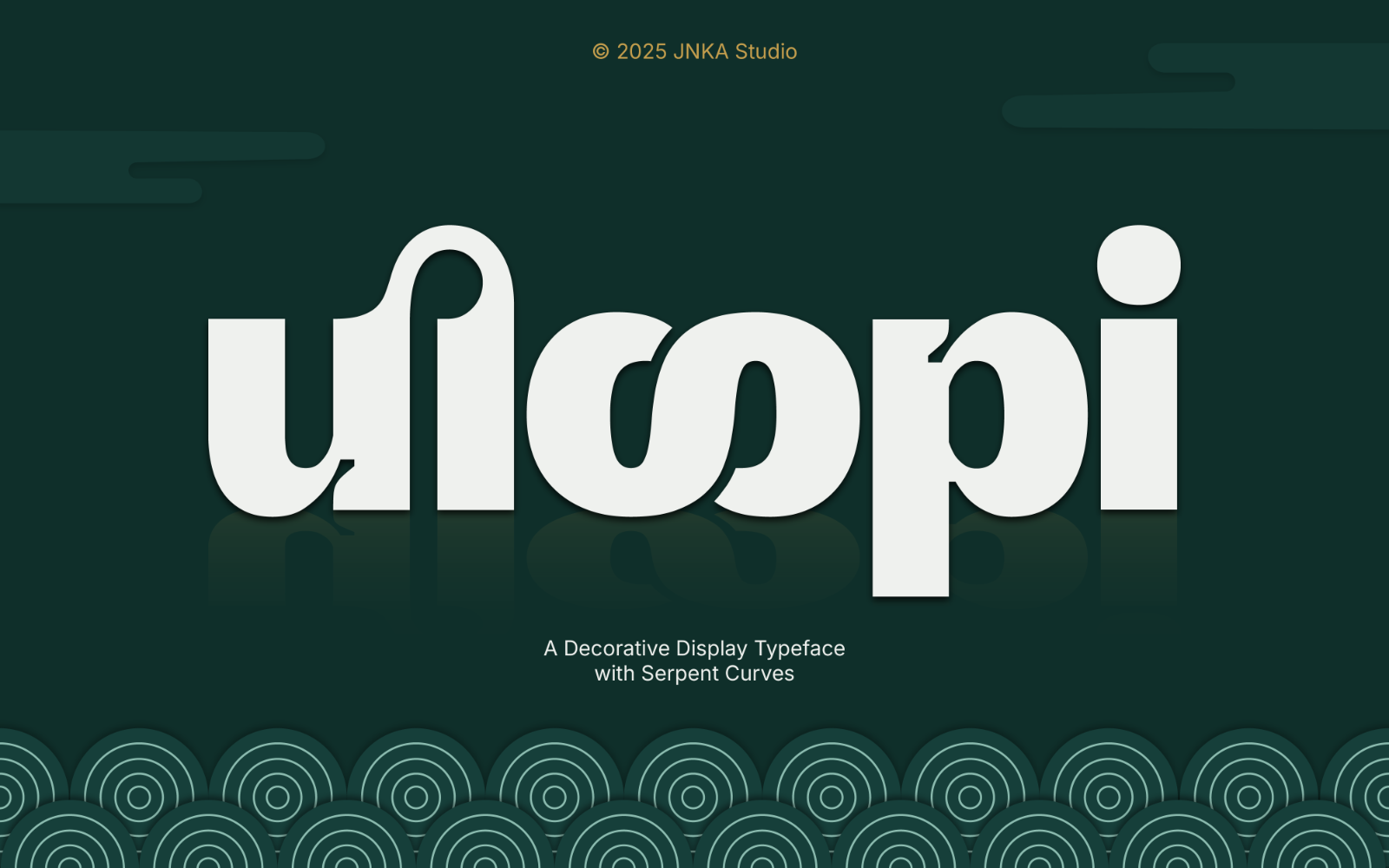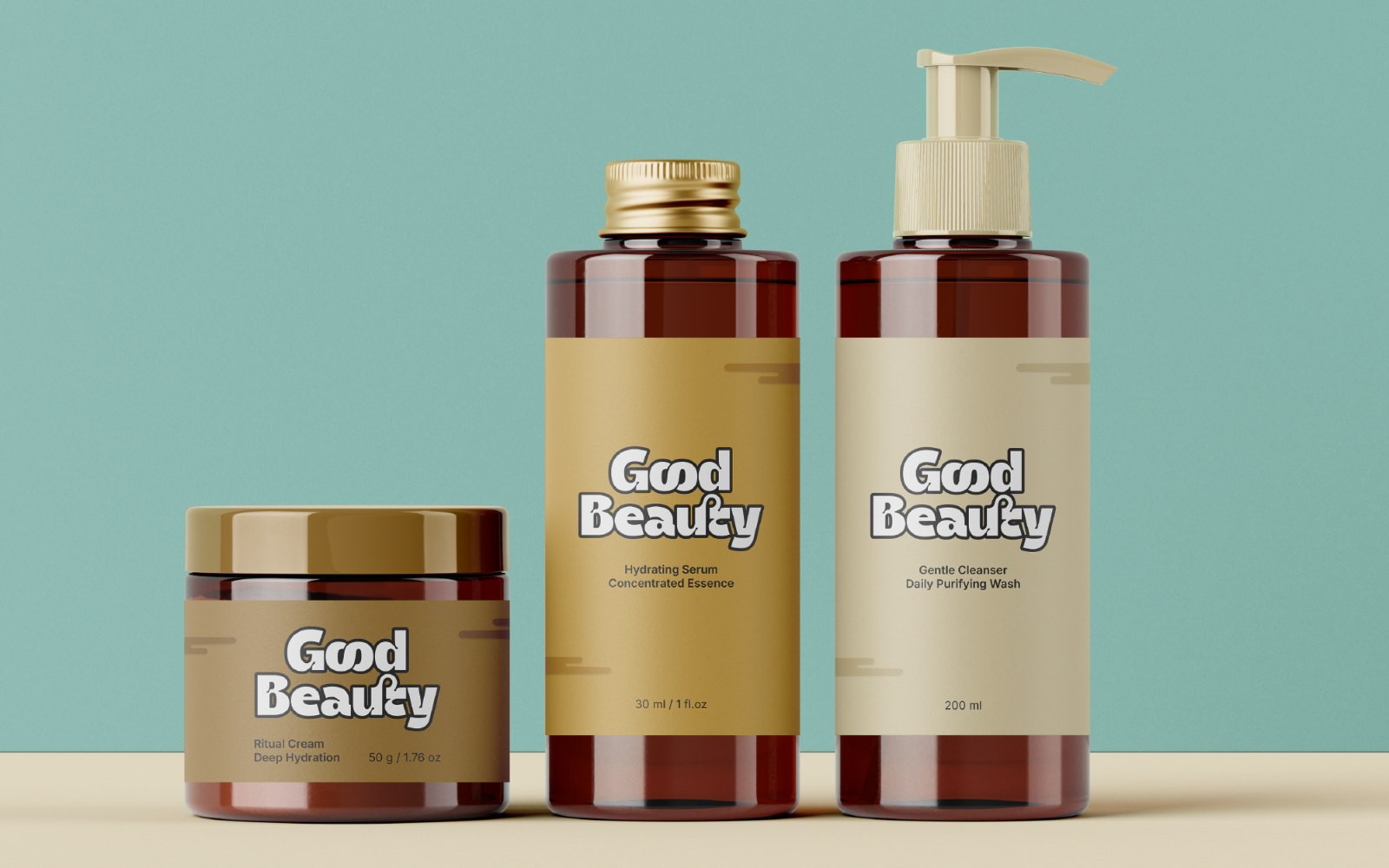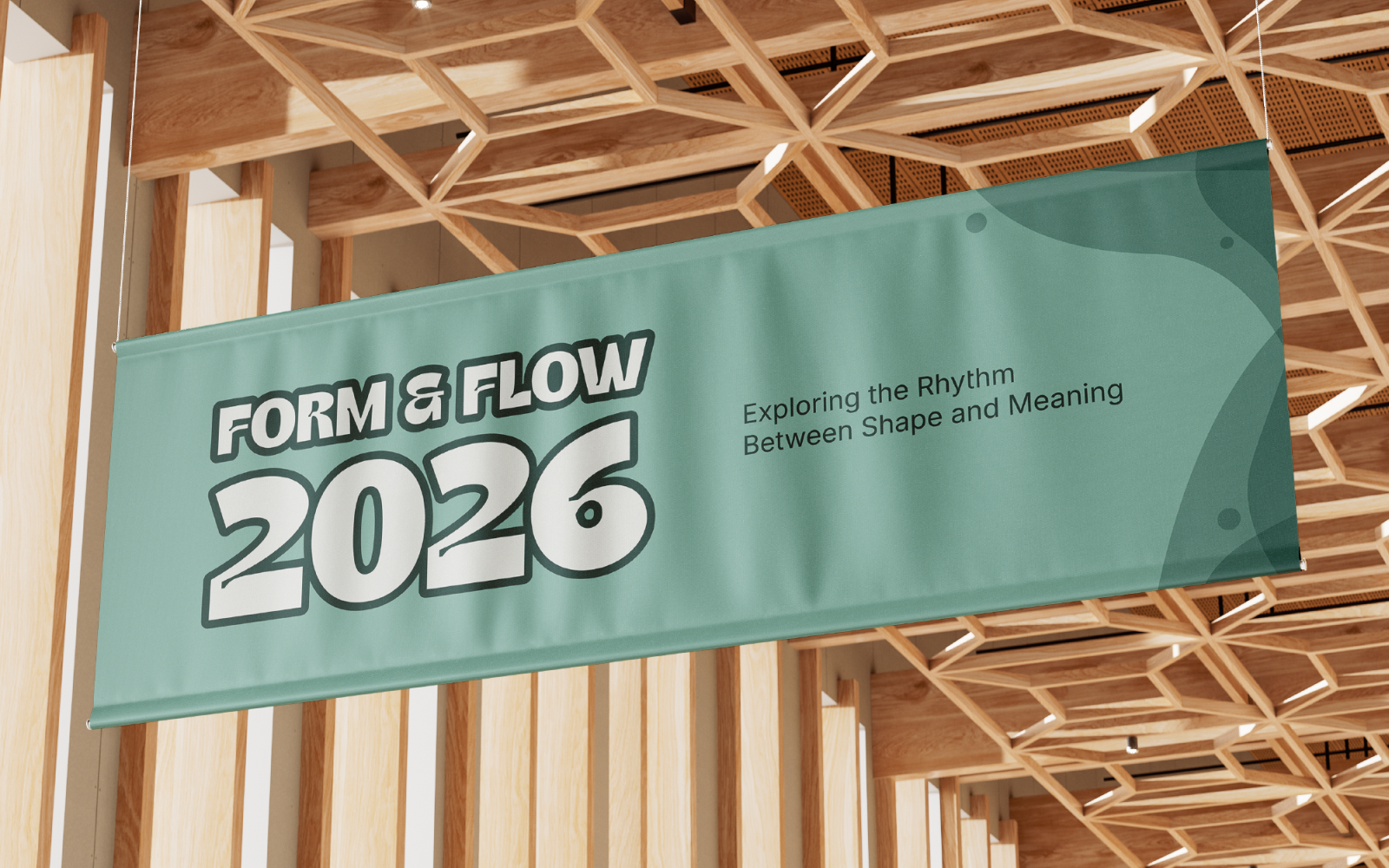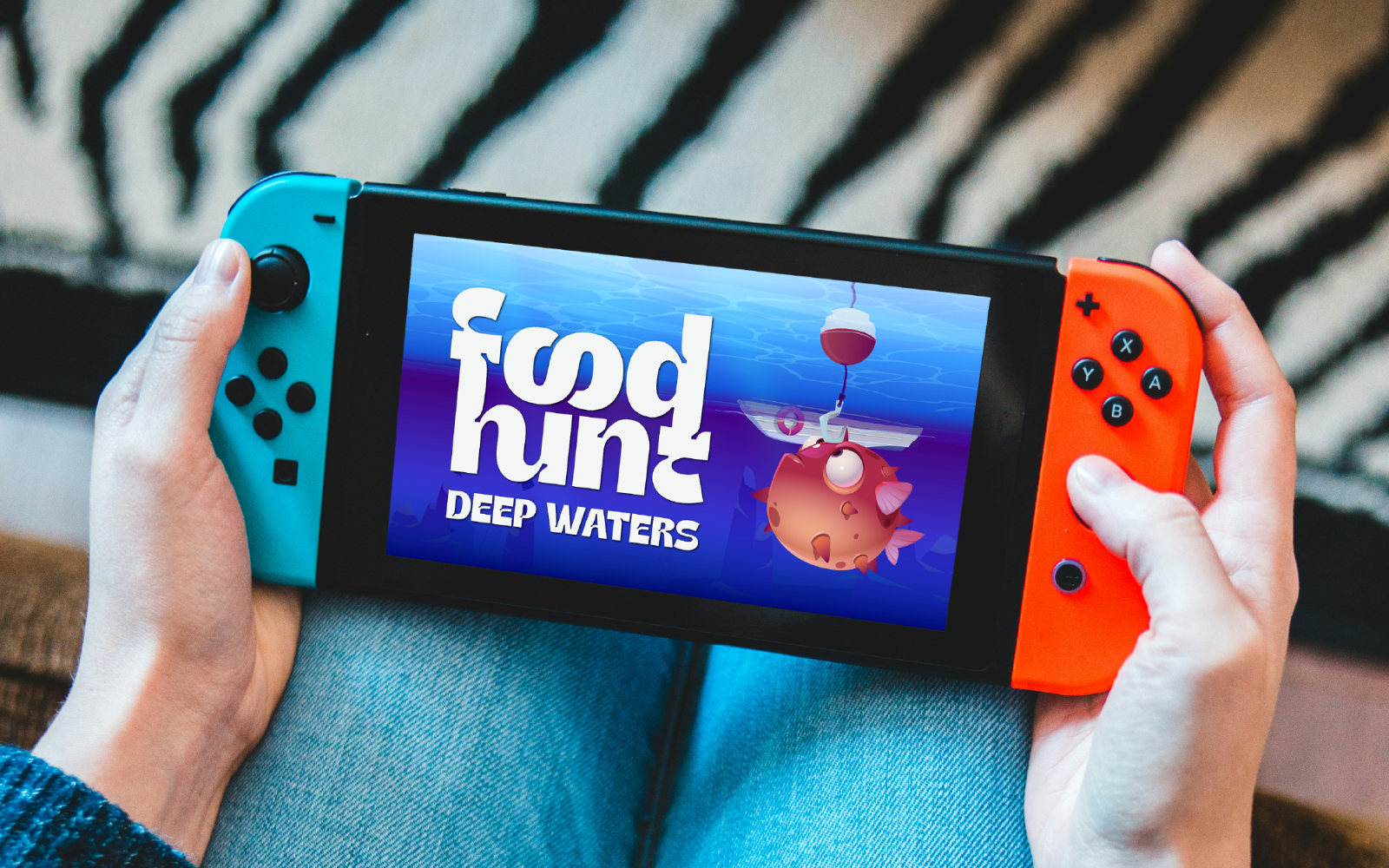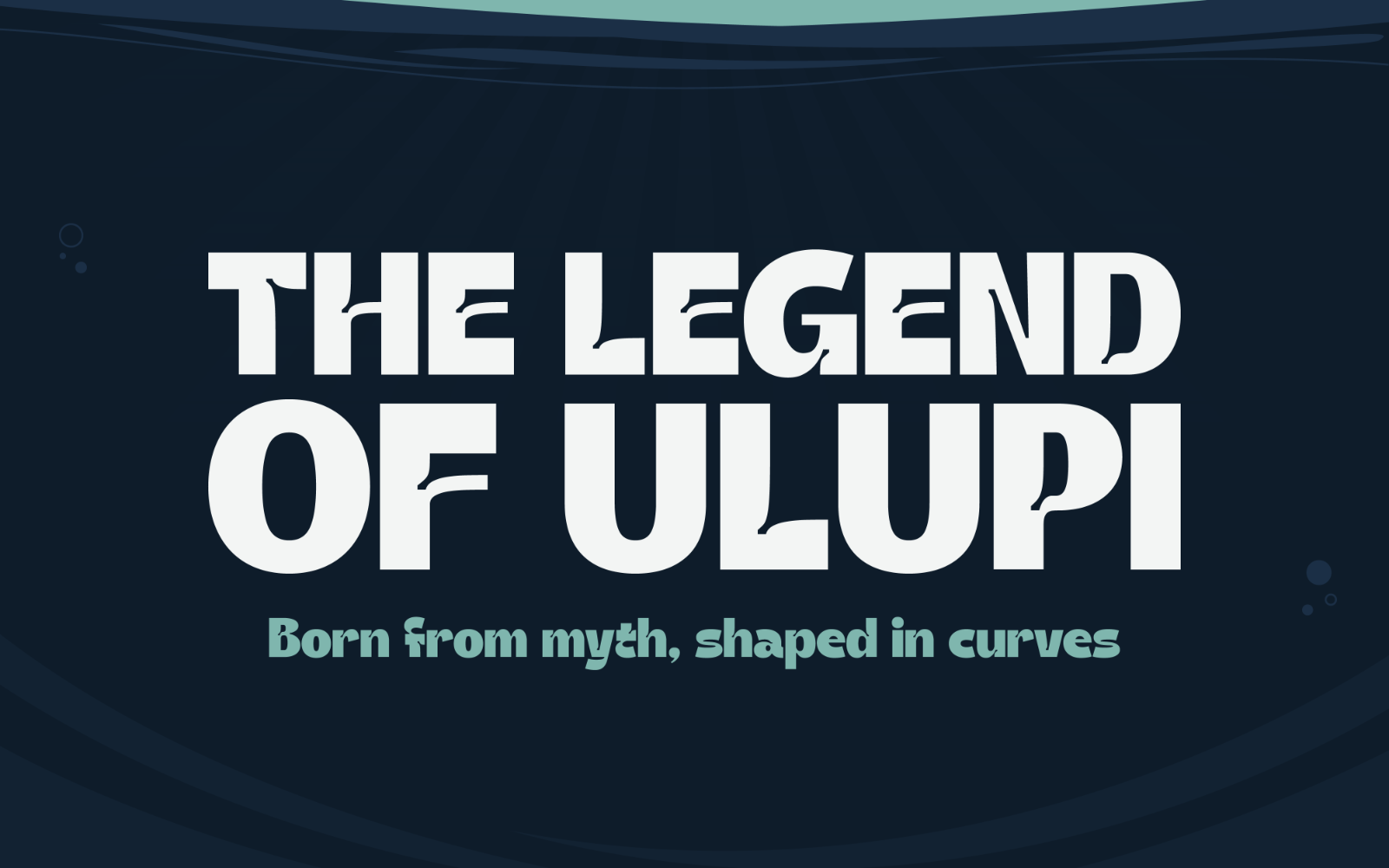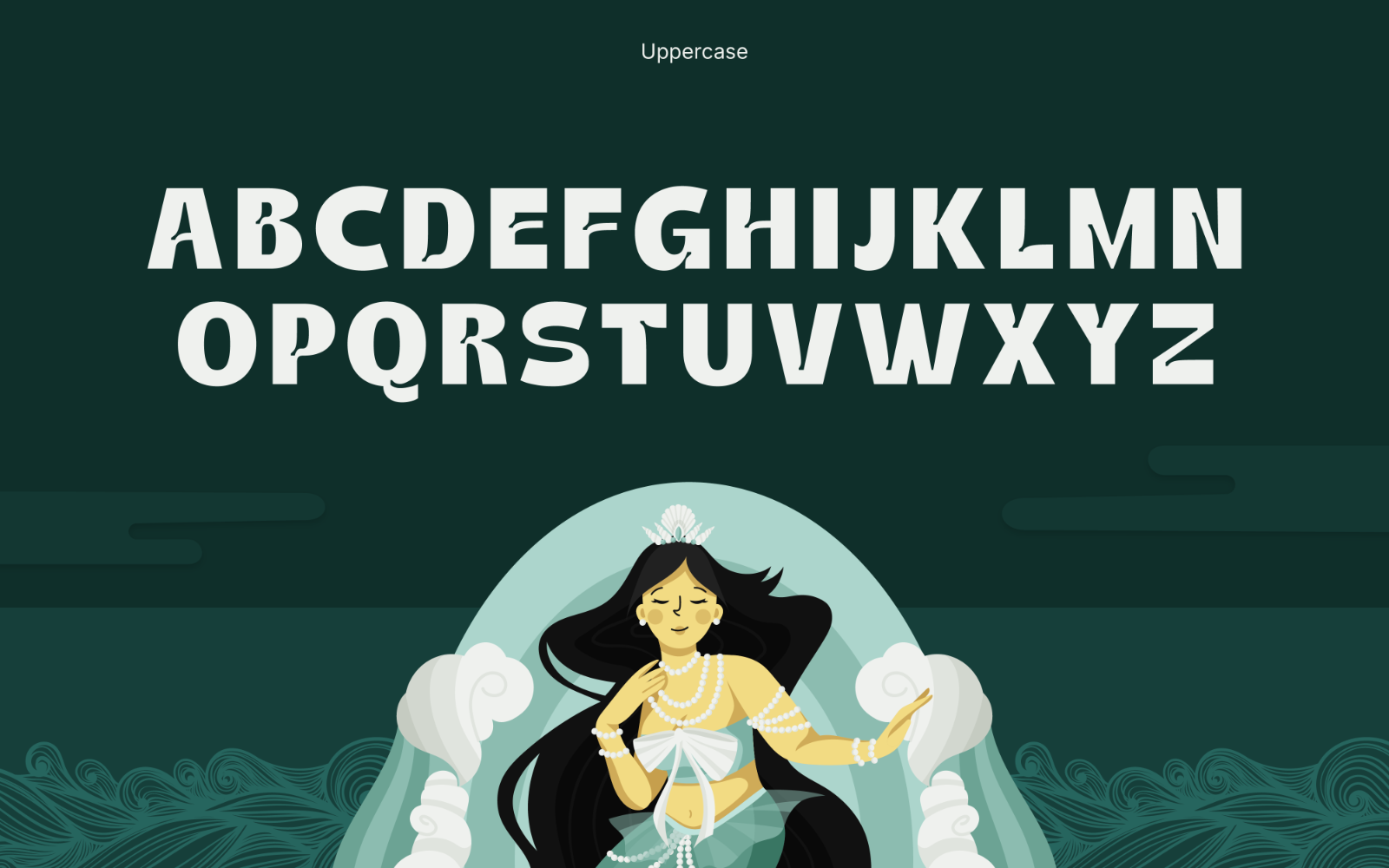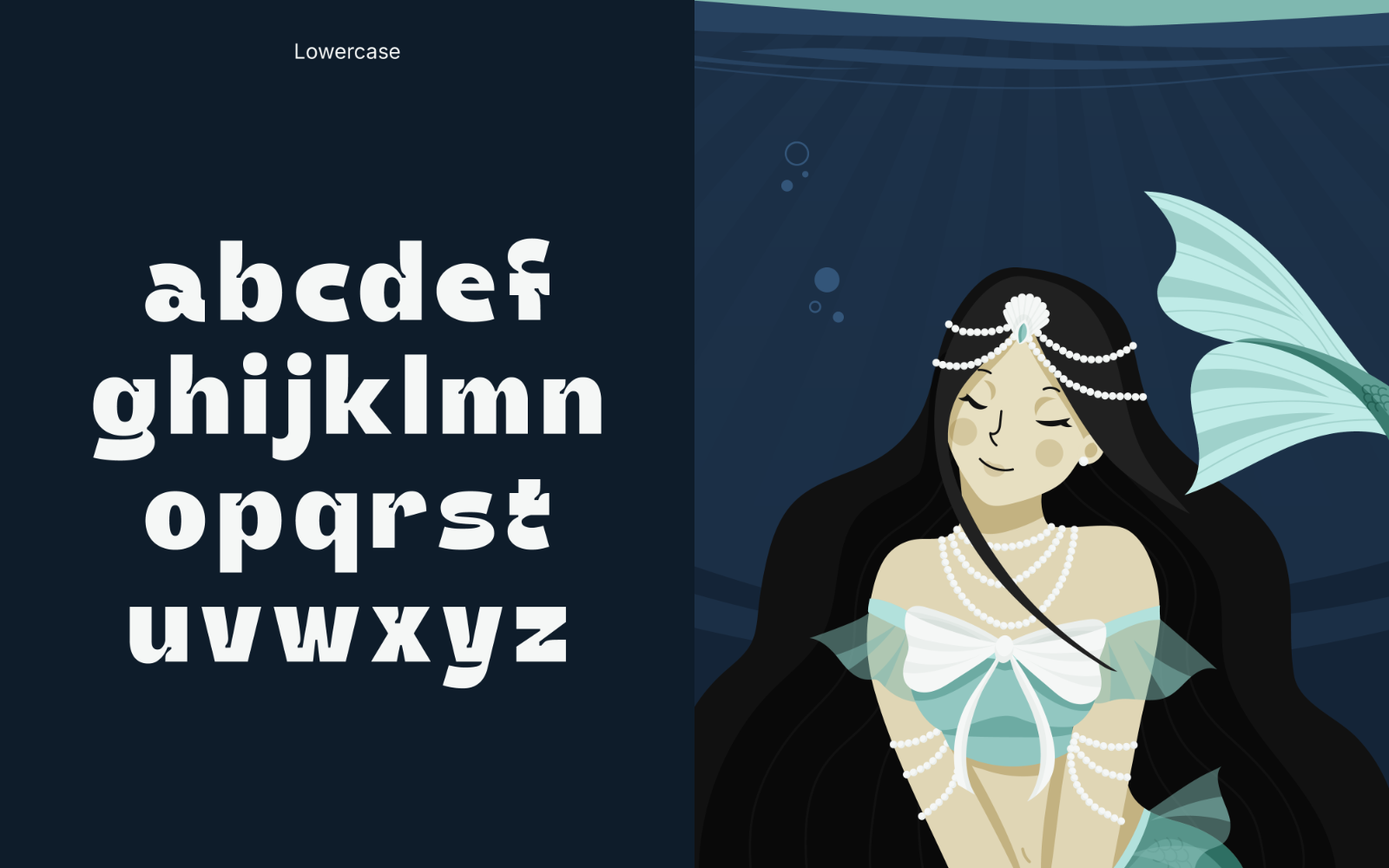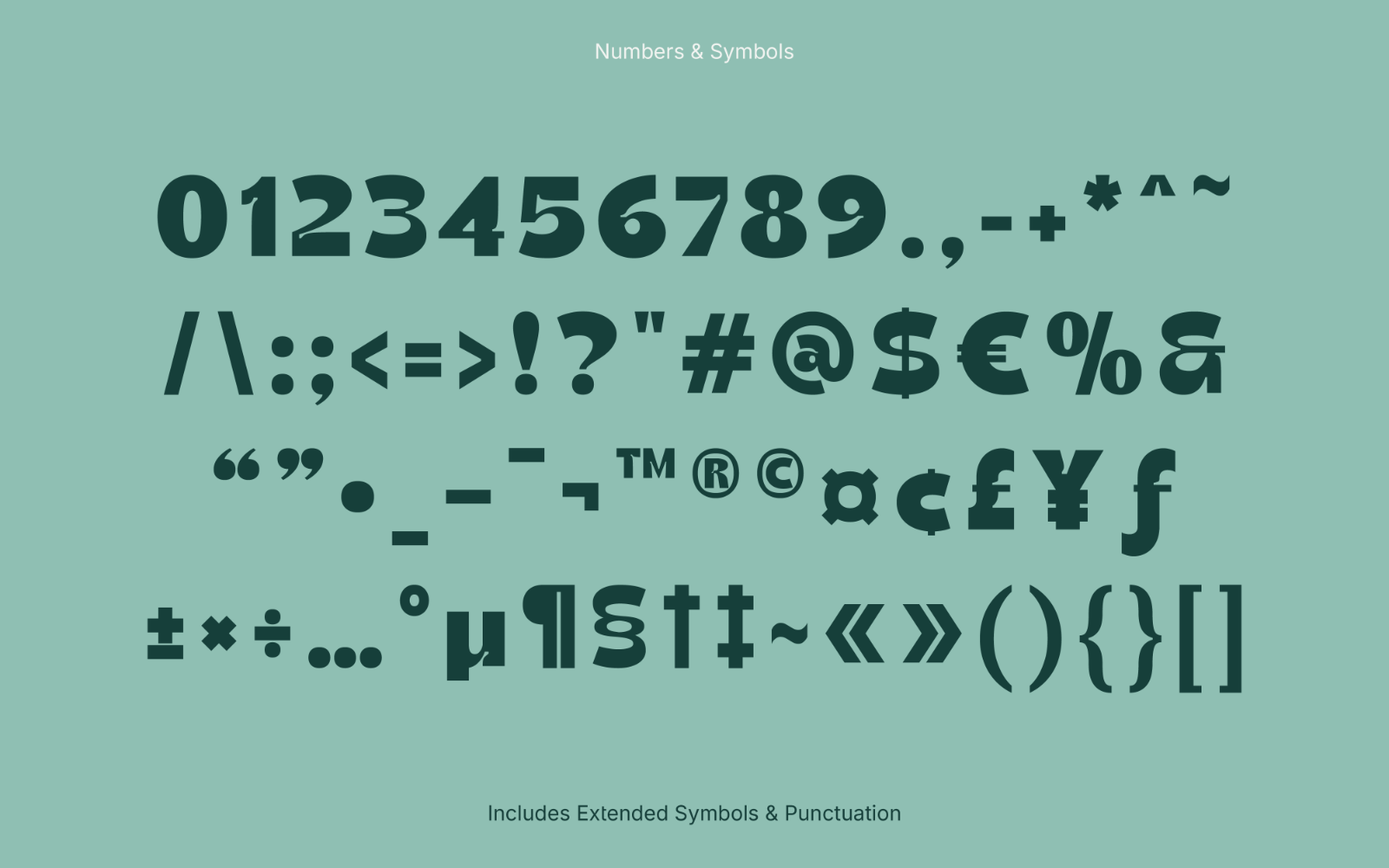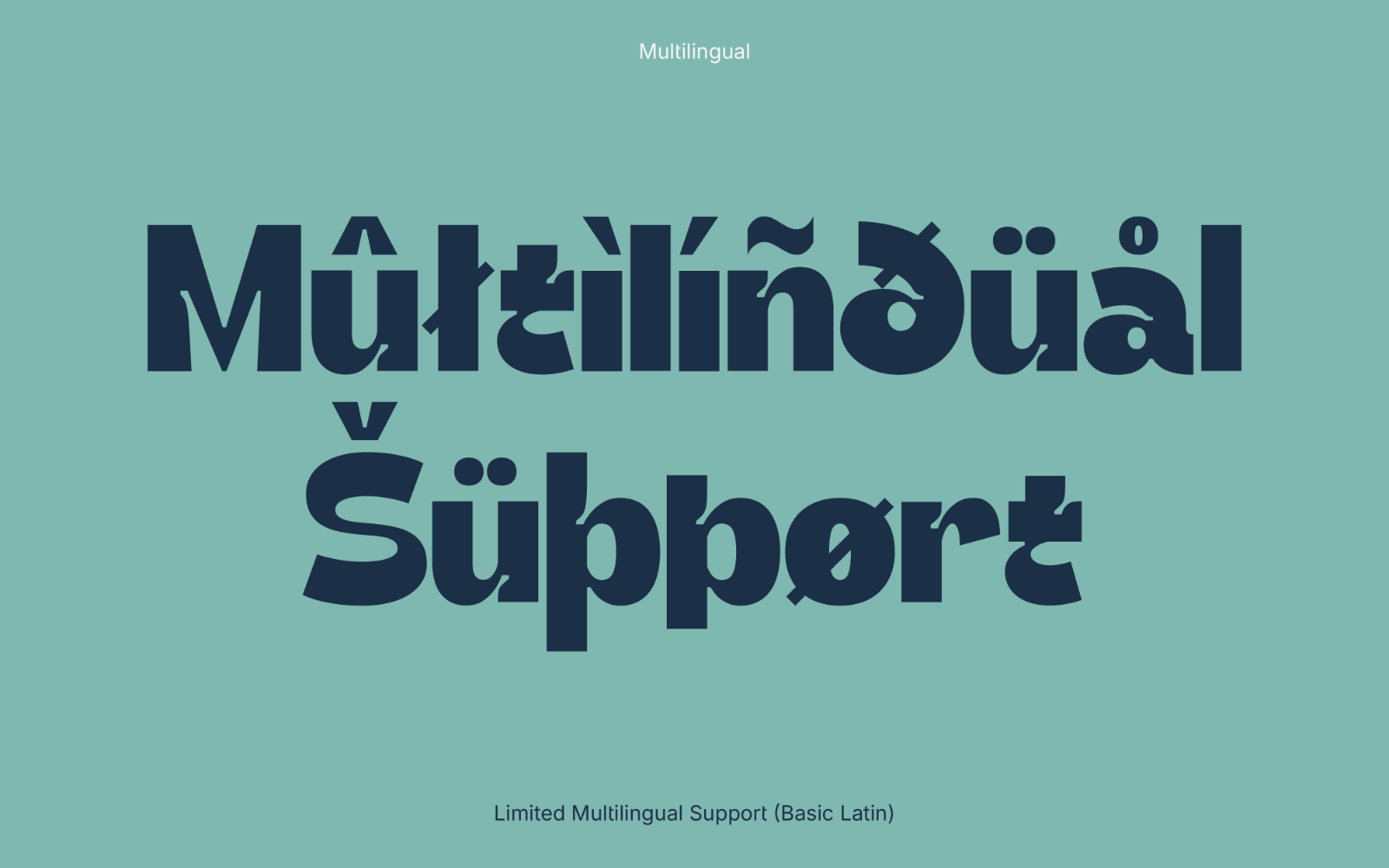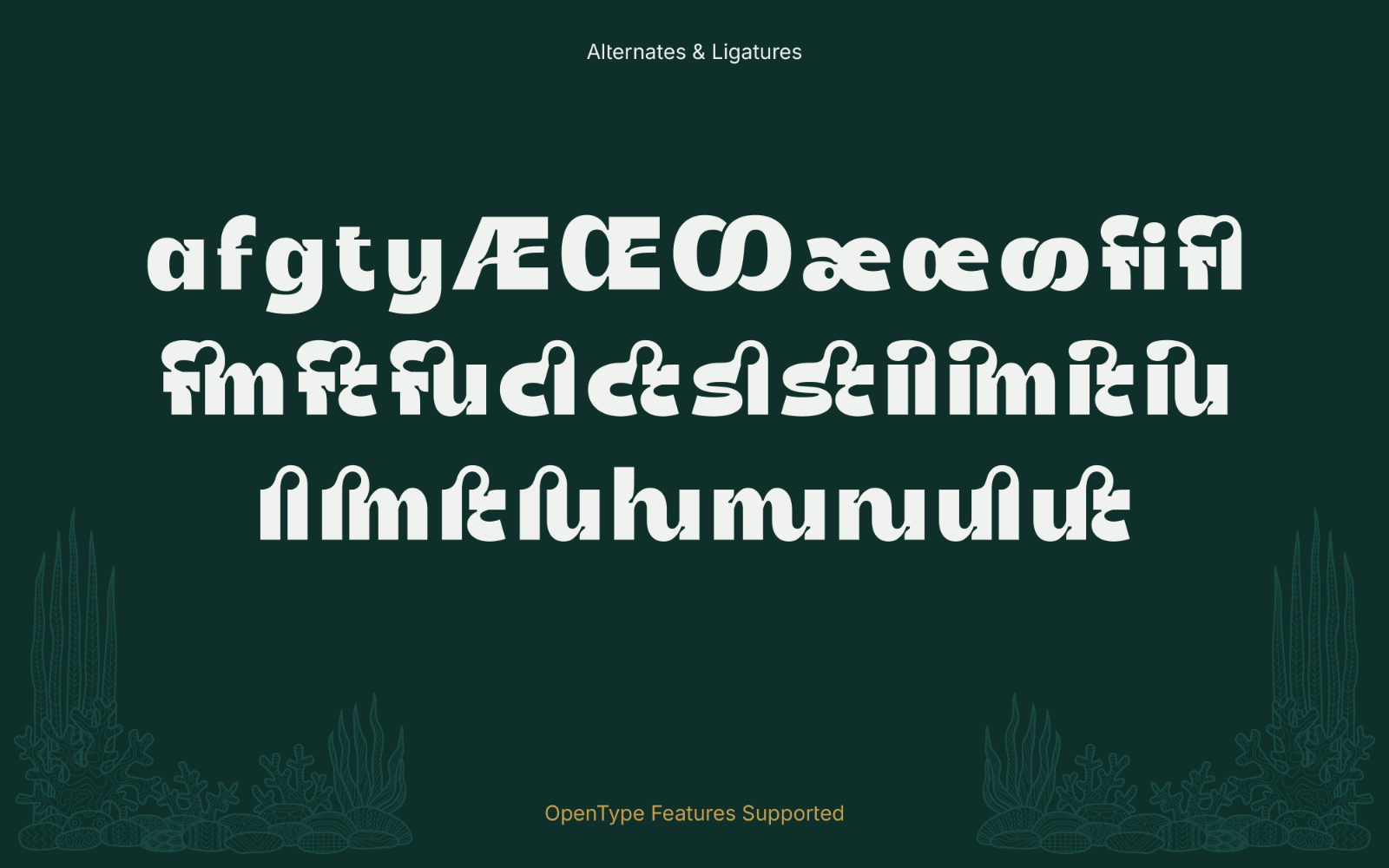
Uloopi
Is a decorative display typeface inspired by myth, water, and flowing curves. Designed for titles, branding, posters, and imaginative visuals.
Born from myth, shaped in curves.
Font Features:
• Uppercase & Lowercase Letters
• Numbers & Standard Punctuation
• Symbols & Special Characters
• Basic Multilingual Support (Latin-based)
• Stylistic Alternates
• Standard & Decorative Ligatures
• Carefully Adjusted Kerning
• OpenType Features